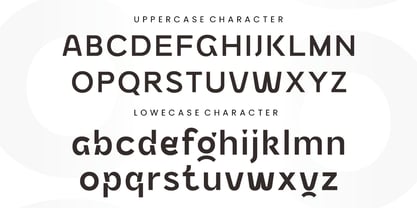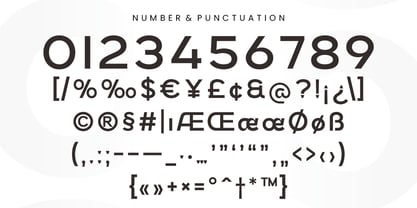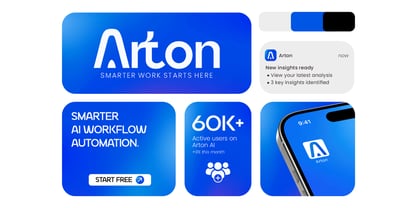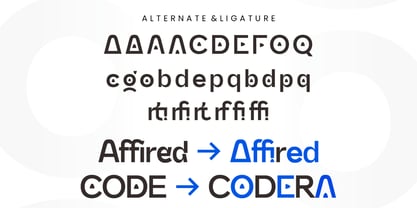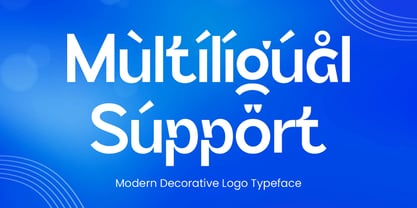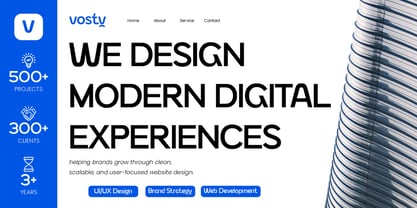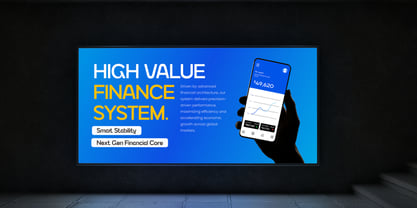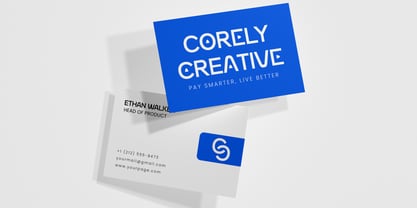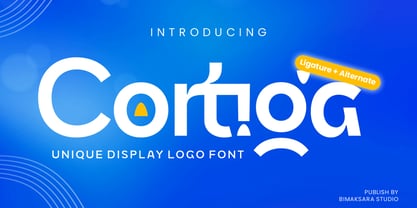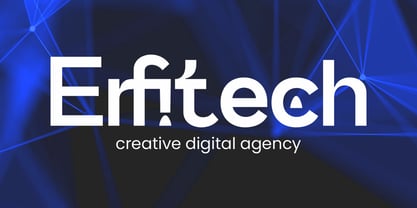
Cortiga
Cortiga is a modern techno decorative font crafted for creators who want bold, futuristic, and standout typography. Designed with unique geometric curves and stylish alternate characters, this font delivers a clean yet experimental look that works perfectly for logo design, branding, posters, gaming visuals, music covers, technology themes, fashion campaigns, and modern editorial layouts.
With its distinctive decorative style, Cortiga brings a strong visual identity while still maintaining readability. Every character is carefully designed to create a premium futuristic atmosphere suitable for both digital and print projects.
Perfect For
• Logo Design
• Tech & Futuristic Branding
• Gaming Projects
• Music Artwork
• Fashion & Streetwear
• Posters & Headlines
• Social Media Graphics
• Creative Editorial Design
Cortiga combines modern techno aesthetics with decorative details to help your designs feel fresh, unique, and visually powerful.
Create bold futuristic visuals with Cortiga.